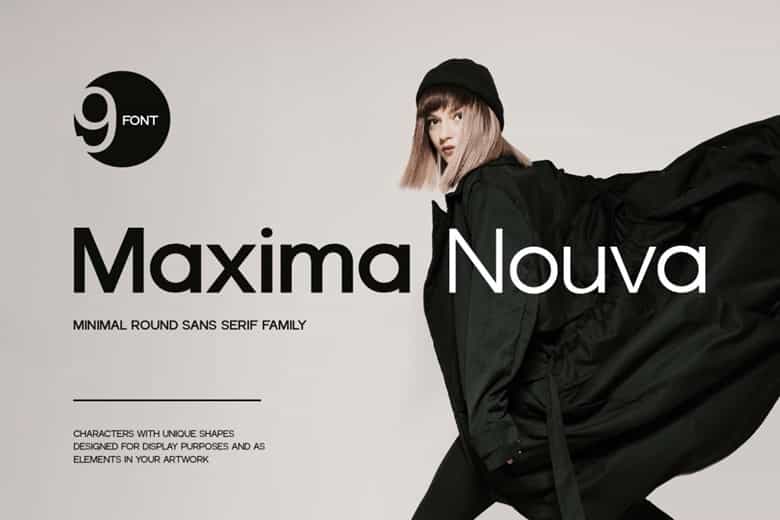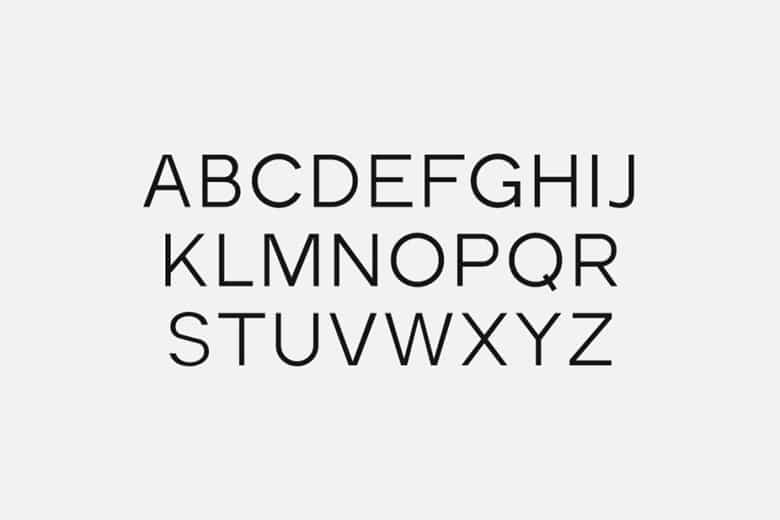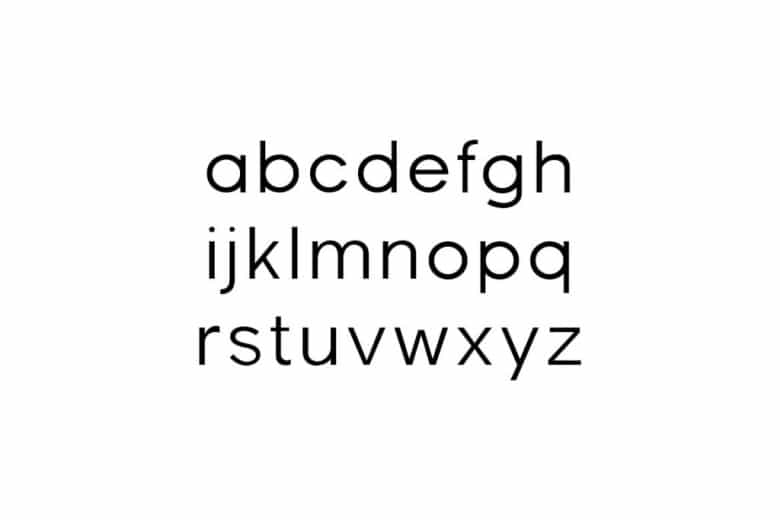
Maxima Nouva is a minimal round sans serif font family feels classy, elegant, and stylish. This font is perfect for many kinds of designs, for example, signature, stationery, logo, wedding, quotes, magazine or book covers, header of websites, branding and other.